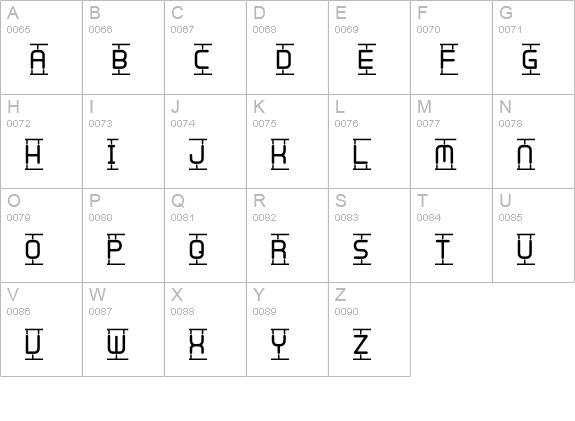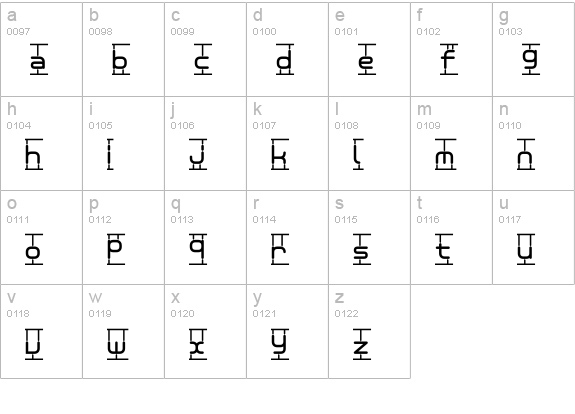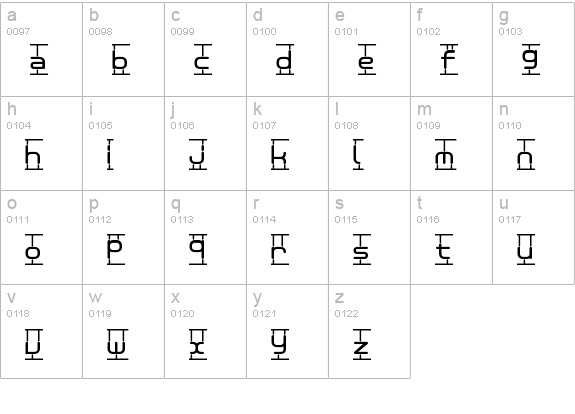
Plamo Font Details
Plamo font is a stunning display typeface that combines elegance with a touch of modernity. Its sleek lines and bold strokes give it an eye-catching appeal that is perfect for a wide range of design projects. This versatile font is suitable for both digital and print media, making it ideal for branding, logos, headlines, posters, invitations, and much more. With its unique and distinctive characters, Plamo font adds personality and charm to any design it is used in. One of the best features of Plamo font is that it is available for free. Yes, you read that right! This incredible font can be freely downloaded at FontsMarket.com. Now, you can enhance your design projects without any additional cost. Plamo font is designed with meticulous attention to detail, ensuring legibility and readability even at smaller sizes. Its clean and crisp letterforms make it easy to read, making it a practical choice for body text as well. Whether you are a professional designer or a beginner, Plamo font offers endless possibilities to bring your creative vision to life. Its wide range of glyphs and ligatures gives you the freedom to experiment and create unique typographic compositions. So why wait? Go ahead and download Plamo font today from FontsMarket.com, and unlock a world of design possibilities. With its timeless elegance and the convenience of being free, Plamo font is a must-have addition to your font library.